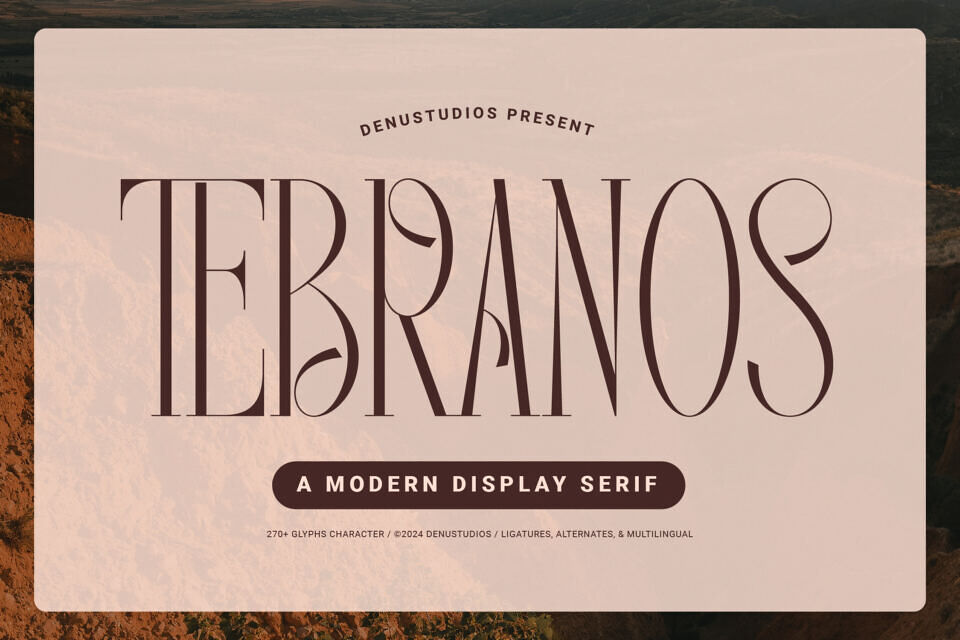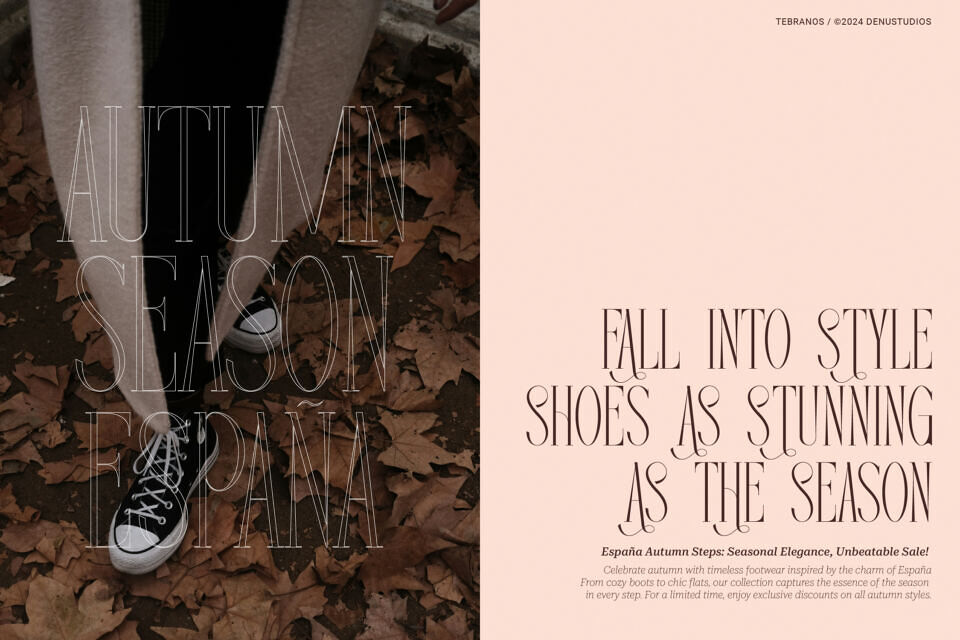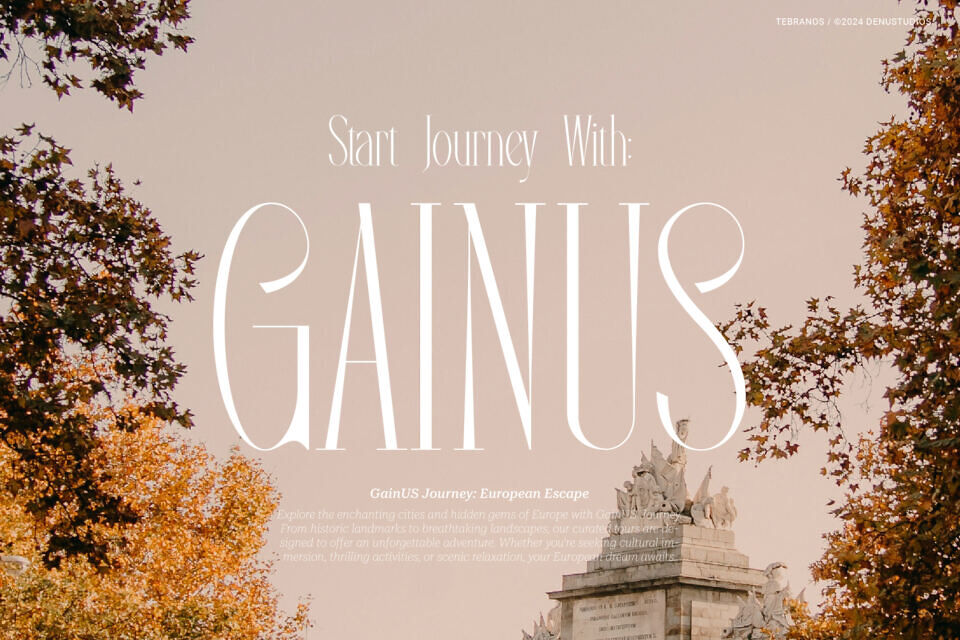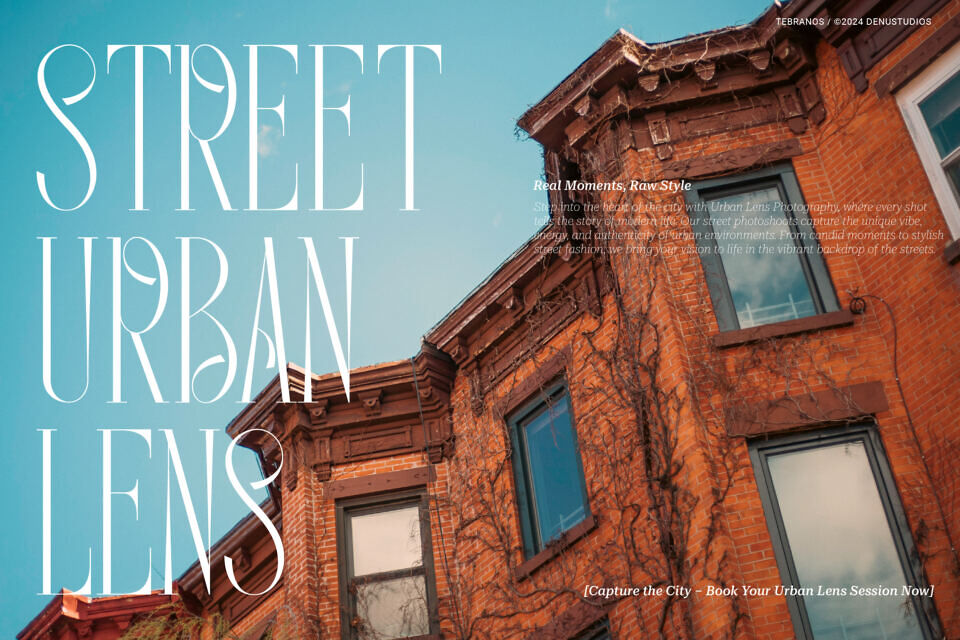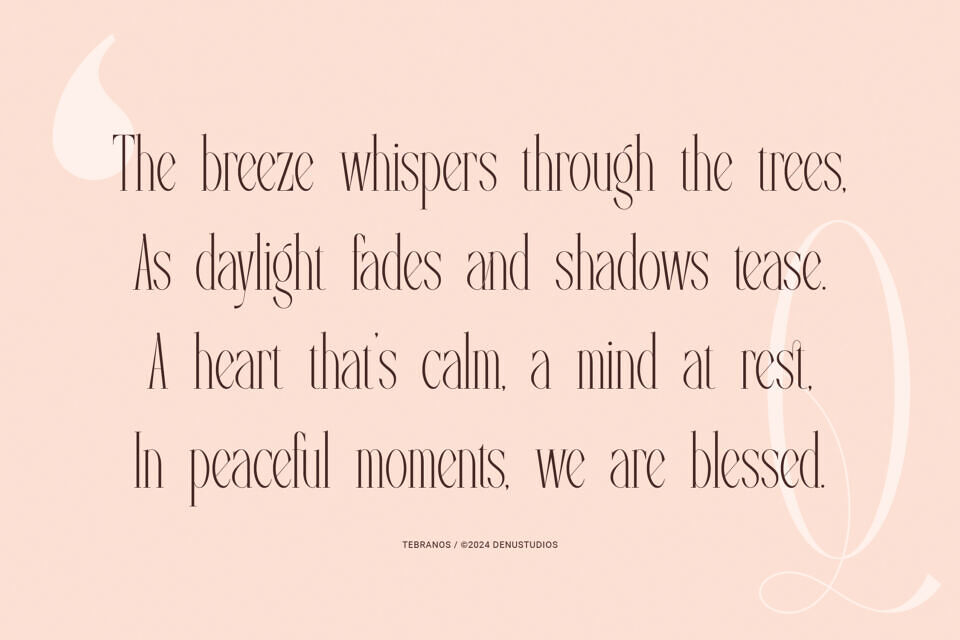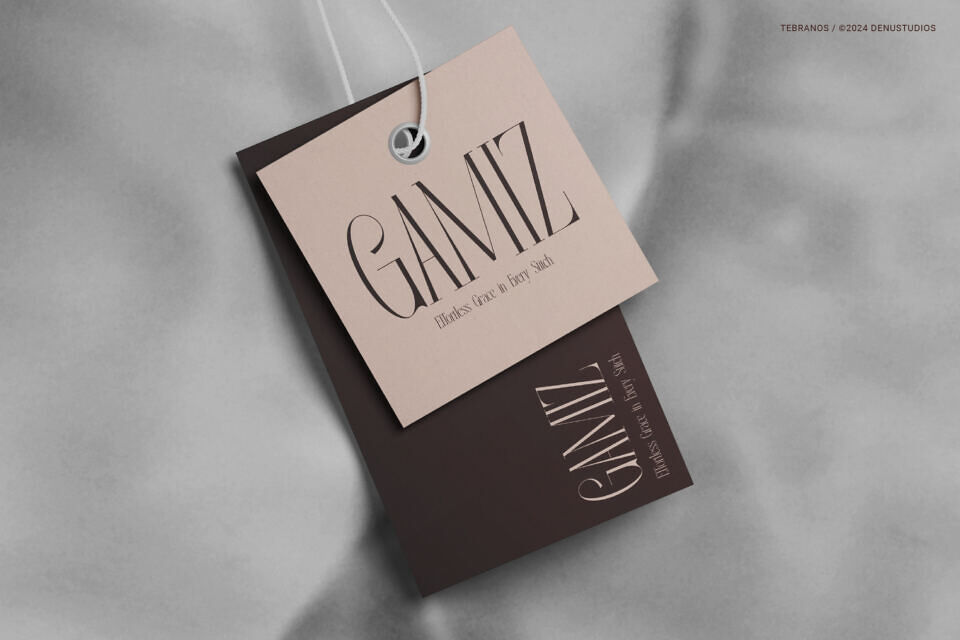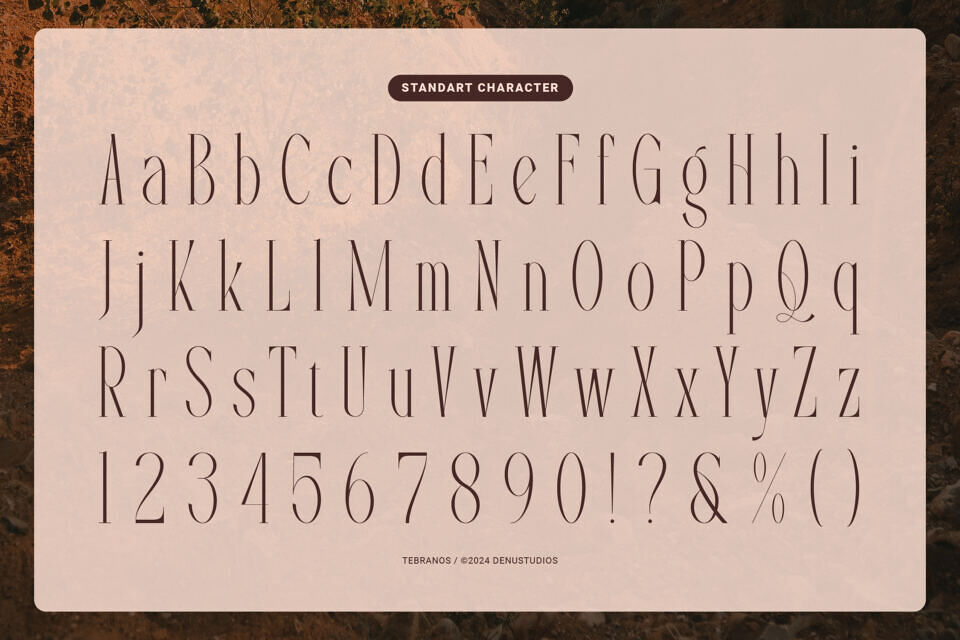
Tebranos Font
Tebranos is a stylish and modern display serif font. It has bold and elegant letter shapes, making it perfect for logos, titles, posters, and branding. Its unique design adds a touch of sophistication to any project.